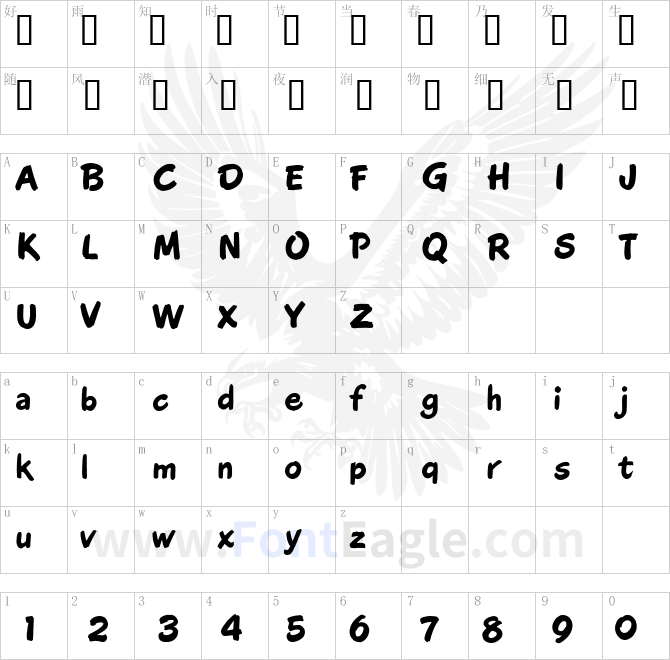
CAC-Moose is a great font, widely used in graphic design, single-page menu design, poster design and other fields, and is deeply loved by designers.CAC-Moose download.